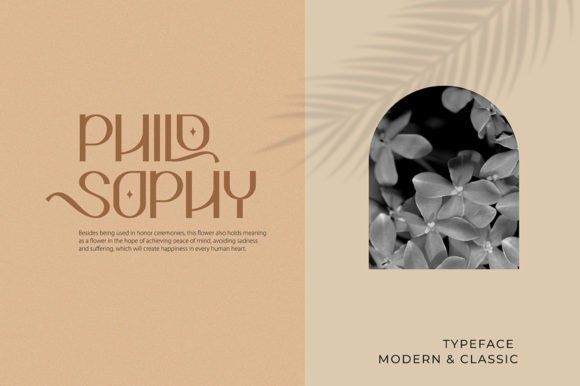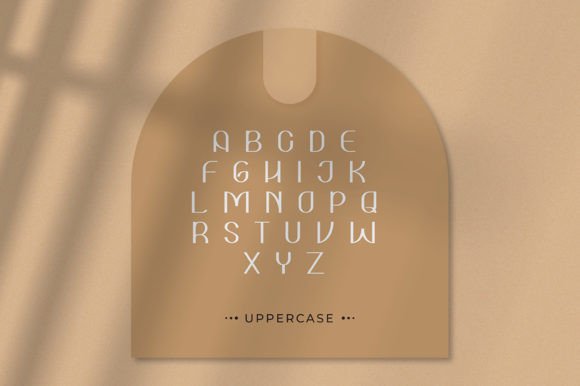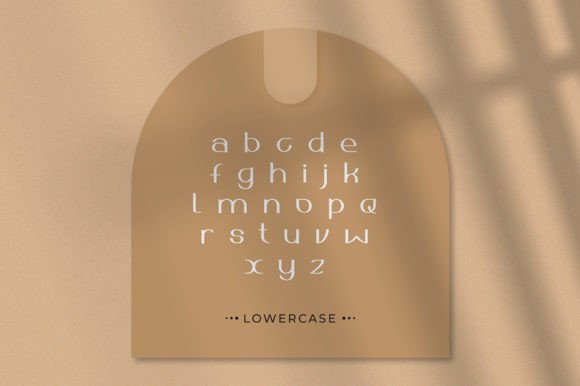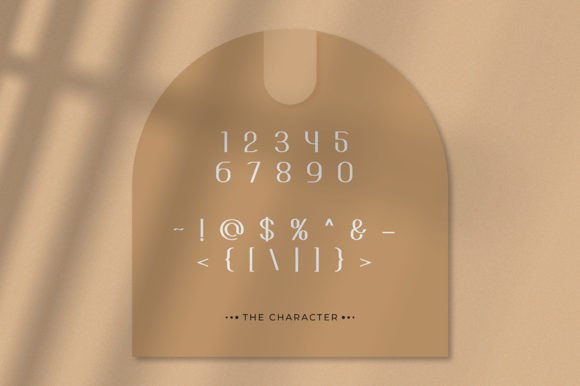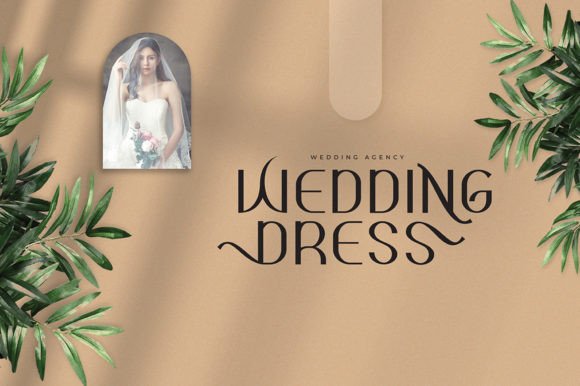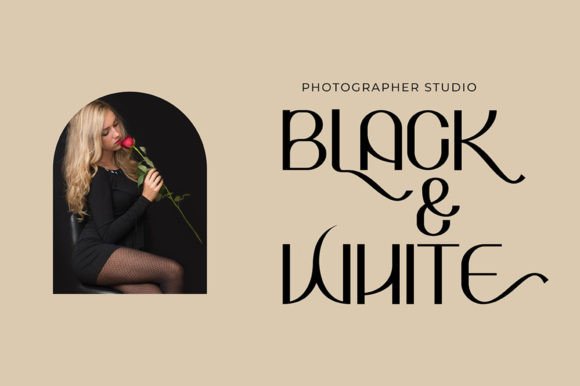
You’ve spent hours perfecting your design, from the colors to the layout, but something’s still missing. That’s when you stumble upon the perfect font – one that elevates your work from good to great. For designers, finding that elusive font can be a game-changer, and that’s where the Asoka Font comes in.
This exclusive serif font is designed to make your work stand out in a crowded digital landscape. With its sharp edges and sleek feel, Asoka Font adds a touch of luxury to any project, from traditional to modern. Its clean lines and versatile design make it the perfect choice for a wide range of applications, from branding to editorial design.
Asoka Font Key Features
- Font Family: Asoka is a sans-serif font family designed by Indian typographer, Sathyanarayanan, in collaboration with the Indian Type Foundry.
- Font Sizes: Asoka is available in 6 font sizes ranging from 14 to 48 points, providing flexibility for different design requirements.
- Language Support: Supports multiple languages including Latin, Greek, Cyrillic, and Devanagari scripts, making it a versatile font for global design projects.
- Unique Characteristics: Asoka’s distinctive design features a modern, clean aesthetic with a strong emphasis on legibility and readability, making it suitable for body text, headlines, and titles.
Asoka Font Review
Overall, I’d say the Asoka font is a decent choice for a sans-serif font. Here’s what I like about it:
- ✨ Versatility: The Asoka font comes in multiple weights and styles, making it suitable for a wide range of applications, from body text to headings.
- ✨ Readability: The font is well-designed for digital use, with clear lines and a consistent stroke width that makes it easy to read even at smaller font sizes.
- ✨ Aesthetics: The font has a modern feel to it, with a subtle flair to the letterforms that adds visual interest without being too ornate.
- ⚠️ Limited language support: The Asoka font doesn’t support as many languages as some other fonts on the market, which may be a concern for projects that require multilingual support.
- ⚠️ Not ideal for print: While the font works well on screens, it’s not as well-suited for print use due to its relatively low x-height and some issues with ink bleeding.
Overall, I’d give the Asoka font 3.5 out of 5 stars. It’s a solid choice for digital projects, but it may not be the best fit for projects that require extensive language support or print use.
Tips for using Asoka Font in Canva: Use it for headings and titles to add a touch of elegance and sophistication to your designs.
Tips for using Asoka Font in Adobe Photoshop or Illustrator: Use it for creating custom typography and adding a unique touch to your designs.
Tips for using Asoka Font in PowerPoint or Word: Use it for creating presentations and documents with a professional and elegant look.
The Asoka Font is ideal for:
- Creating elegant headings and titles.
- Adding a touch of sophistication to designs.
- Creating custom typography and logos.
Remember to experiment with different font sizes, colors, and styles to get the most out of the Asoka Font.